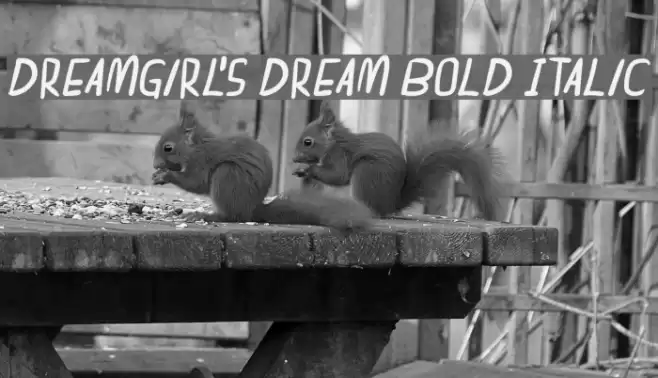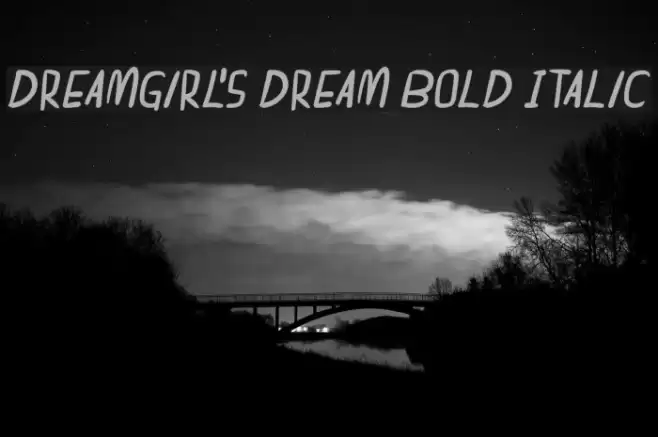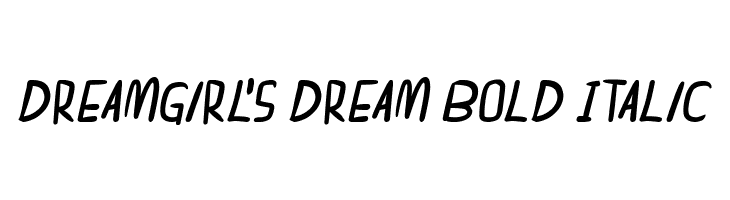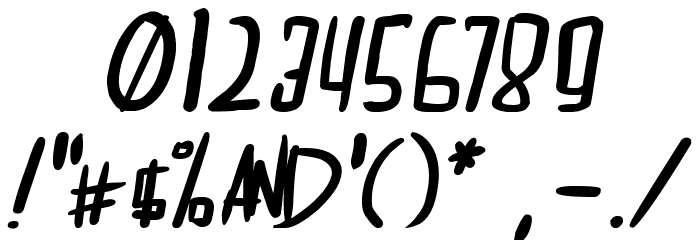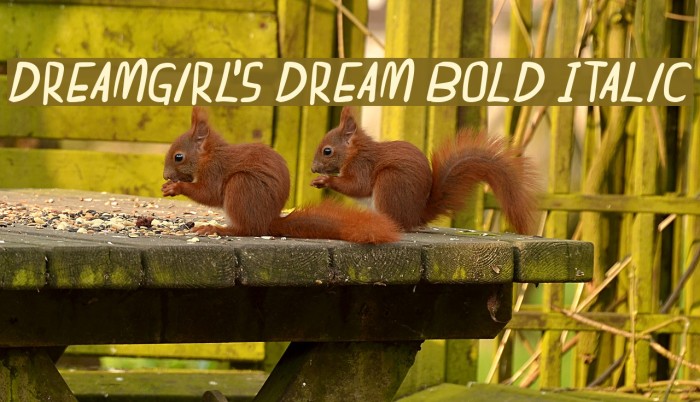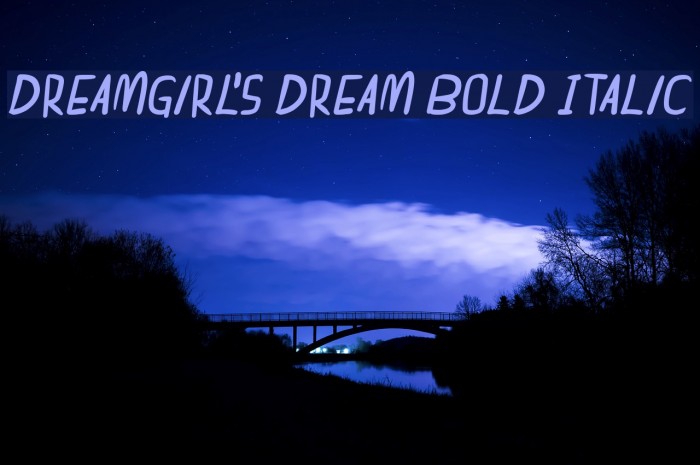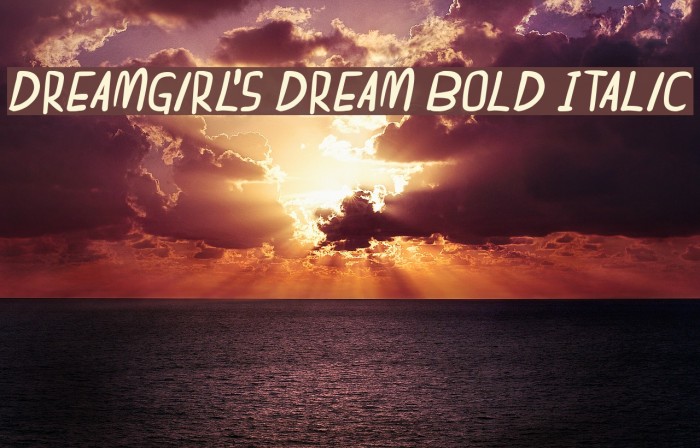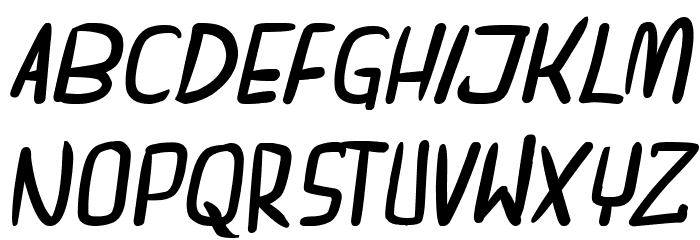
dreamgirl's dream Bold Italic Font
dreamgirl's dream Bold Italic Description
This font features a bold and italicized style with a handwritten, casual appearance. The letters are slightly slanted, adding a dynamic and energetic feel. The strokes are thick and consistent, providing a strong visual impact. The characters are well-spaced, ensuring readability while maintaining a cohesive look. The font includes both uppercase and lowercase letters, numerals, and a variety of special characters, making it versatile for different uses. Its playful yet assertive style makes it suitable for creative projects that require a personal touch.
A bold, italic handwritten font with a dynamic and playful style from Comic fonts.
- Proposed Projects: Ideal for branding, posters, social media graphics, and creative invitations.